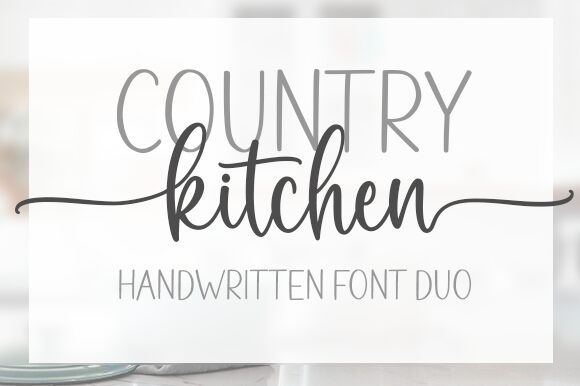
Country Kitchen
Country Kitchen is a beautiful handwritten font designed by Aldi Raya Pradipta. Its light weight makes it perfect for crafting eye-catching logos, invitations, posters and more. Country Kitchen is also suitable for creating stylish social media posts and heartfelt quotes.